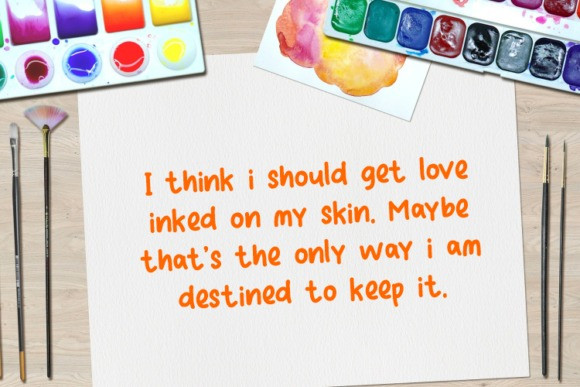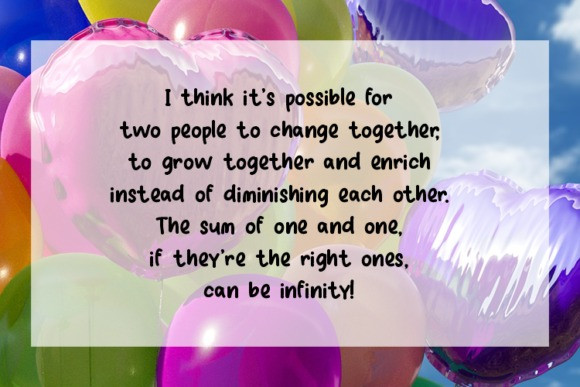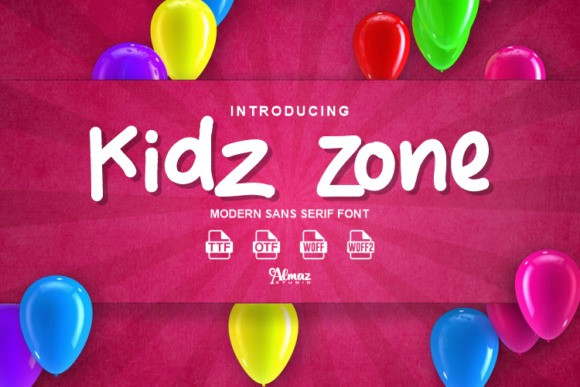
Kidz Zone Font
Kidz Zone Font is a quirky and relaxed handwritten font. Add this casual and friendly font to your favorite creations and notice how easily they stand out.